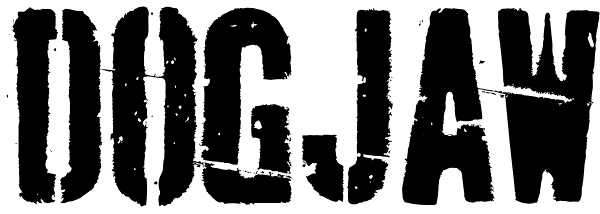
Dogjaw
The OpenType versions of Dogjaw have 52 features that automatically substitute a unique pair of distressed characters when any upper or lower case letter is keyed twice in a row. Dogjaw Pro extends the character set to support Eastern European...
Dogjaw
Dogjaw Pro